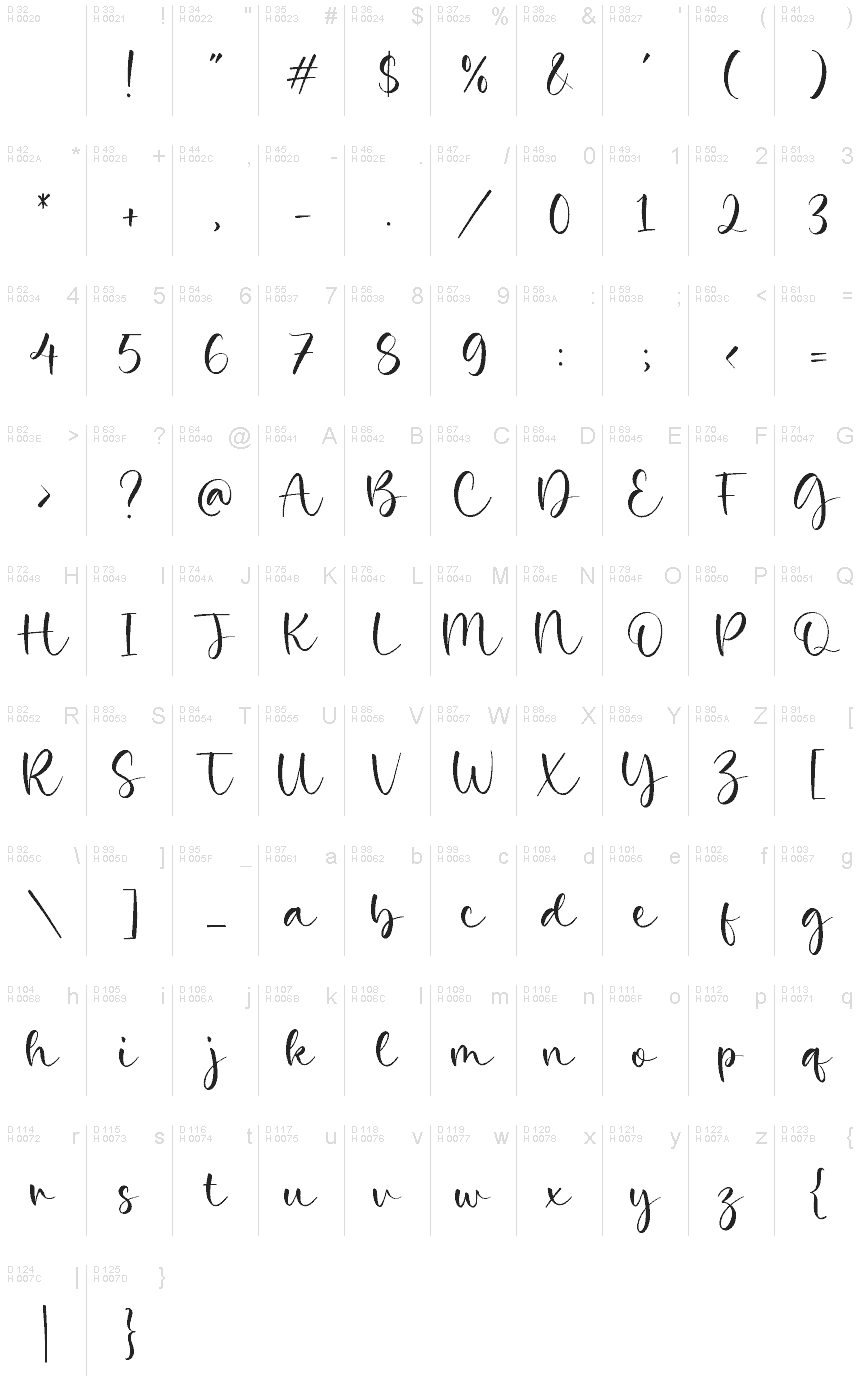
Broken White
Broken White font by Timur Type is a handwritten typeface that captures an organic flow, expressive style, and an artistic flair. It combines casual elegance with a modern touch to create something whose balance is nearly poetic. Use the free handwritten font within your projects!